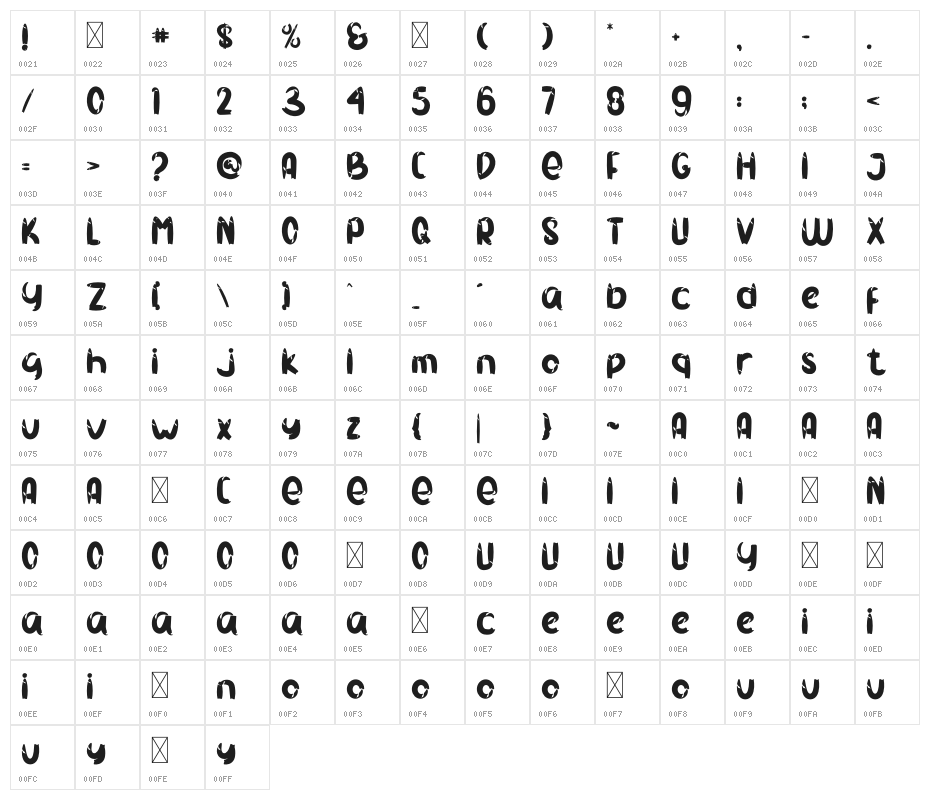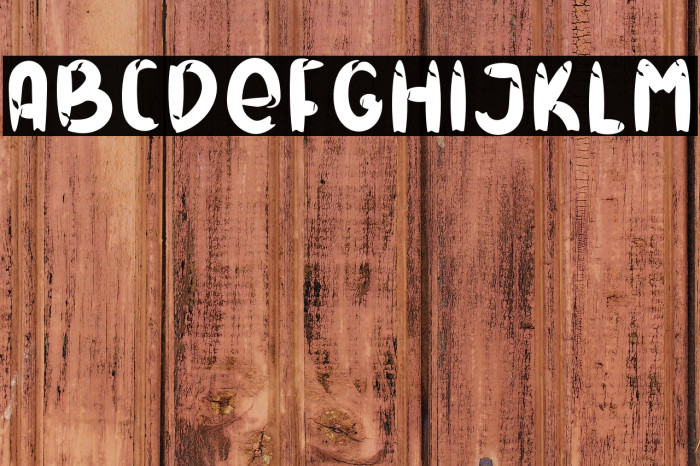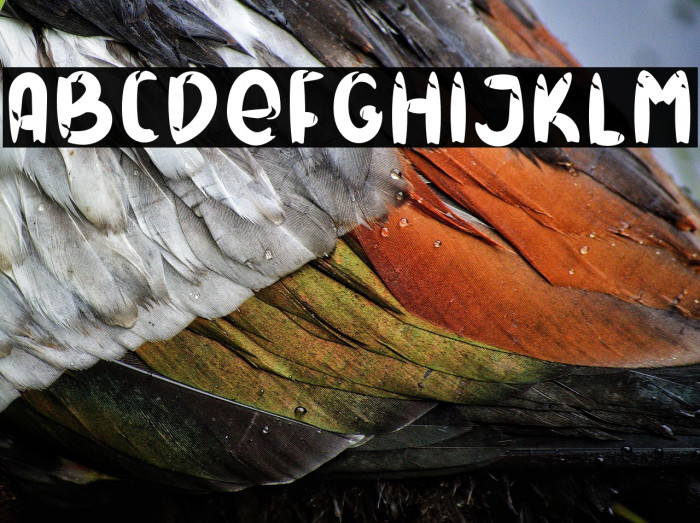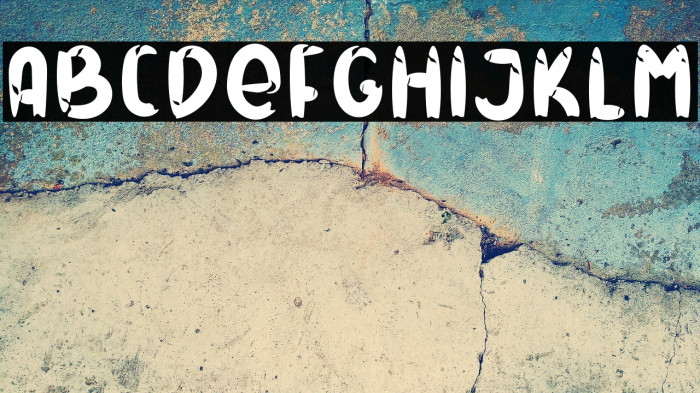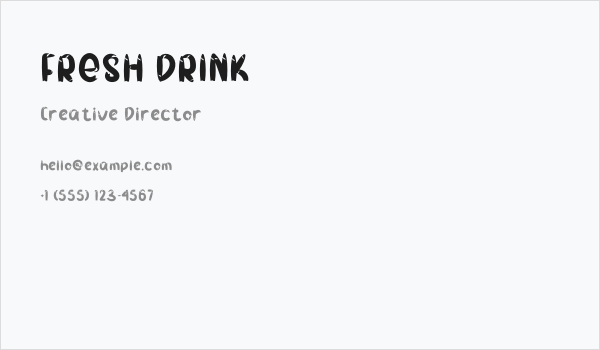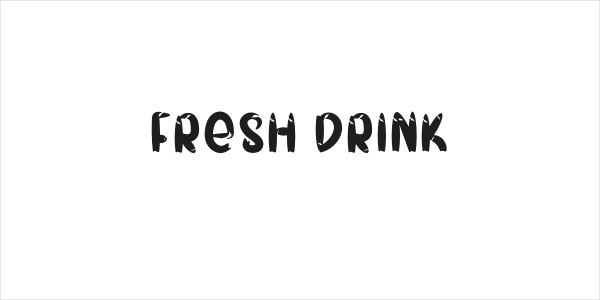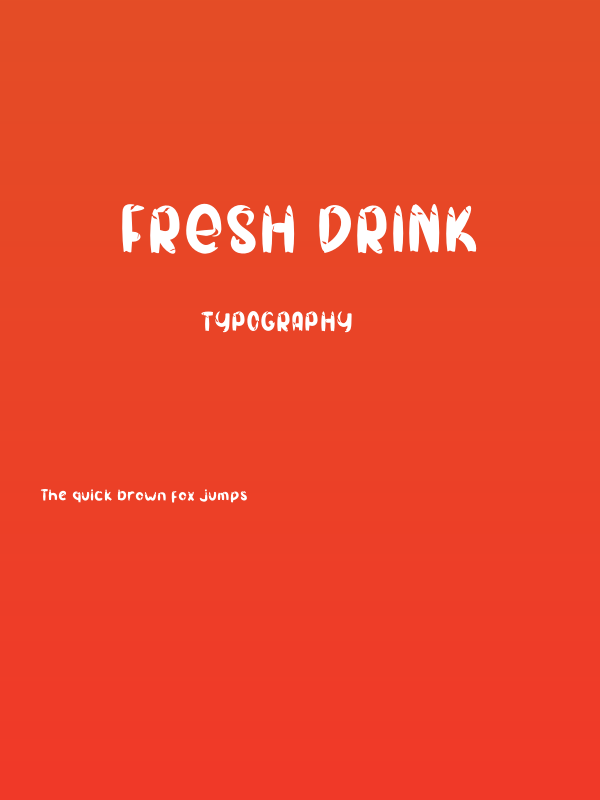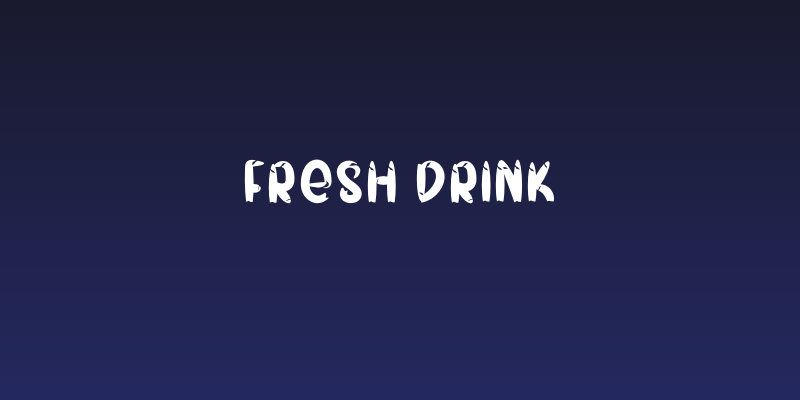
FRESH DRINK Font
FRESH DRINK Description
This font features a bold and playful style with a unique, artistic flair. The characters are designed with irregular, brush-like strokes that give a sense of movement and energy. The uppercase and lowercase letters maintain a consistent width, creating a cohesive look across the alphabet. Numbers and special characters follow the same dynamic style, making them stand out with their bold presence. The font's overall appearance is both modern and decorative, making it suitable for creative projects that require a touch of whimsy and boldness.
| Proposed Projects | Ideal for branding, posters, packaging, and any creative projects that require an eye-catching and energetic typeface. |